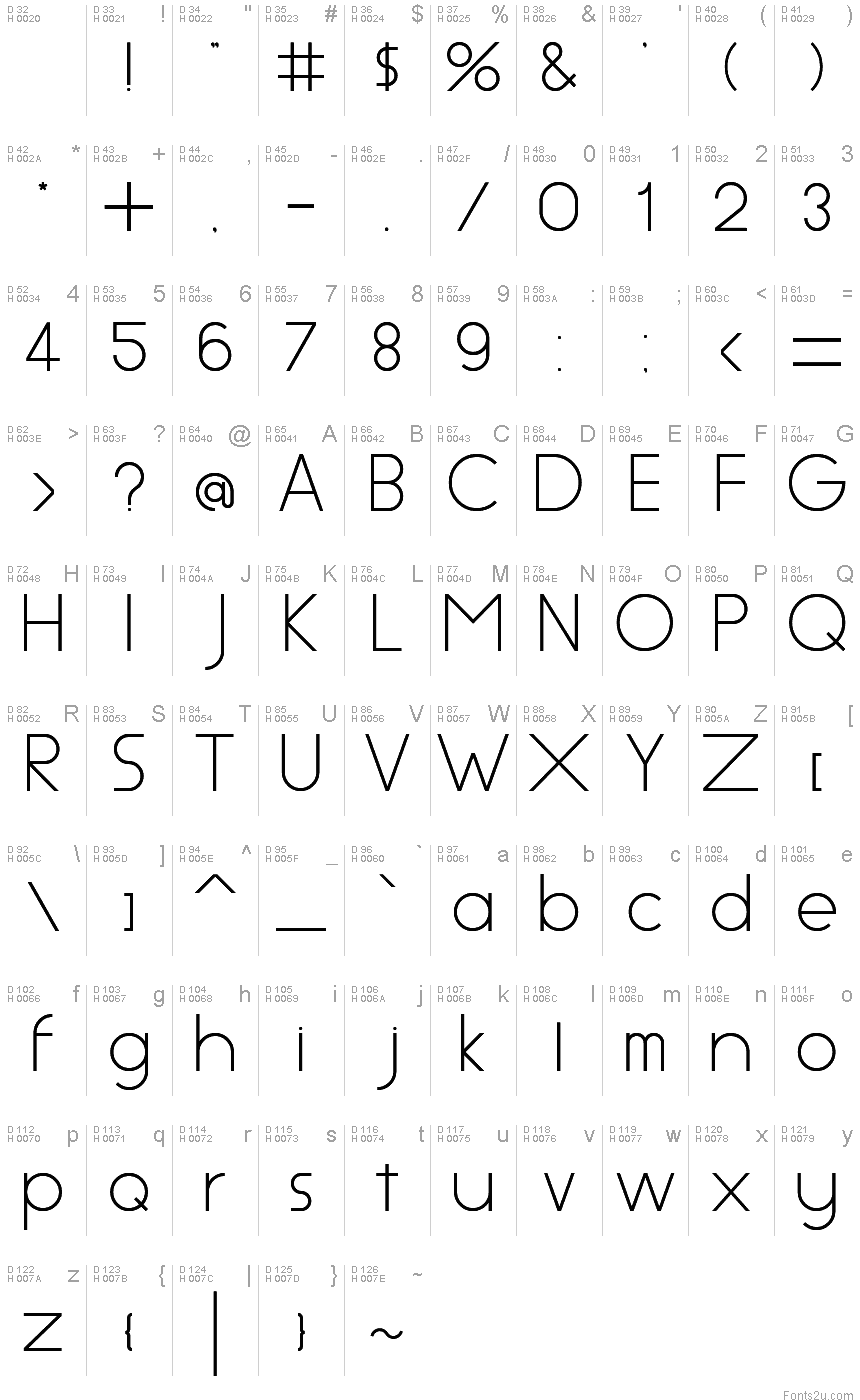
Aspex
This font contains a unique geometric design which can be used for your website, logo, flyer and everything you can think of. It is a modern sans serif font build out of geometric shapes in the most simplistic way.